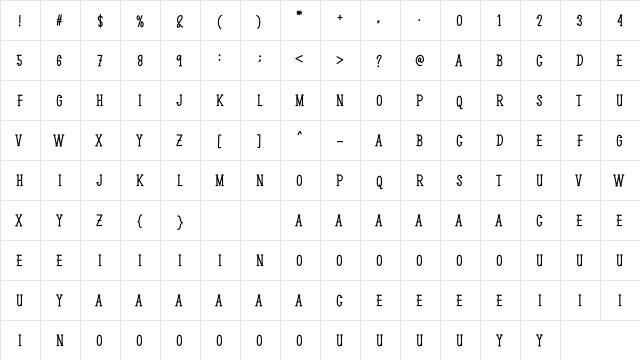
Haunted House Regular
Design Context for Haunted House Typeface
Haunted House is a composed and adaptable typeface that performs quietly and consistently across a wide range of design contexts.